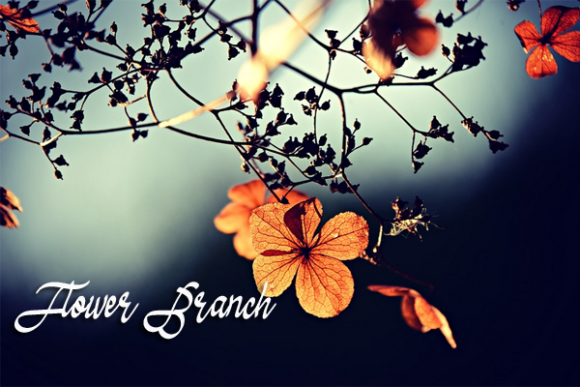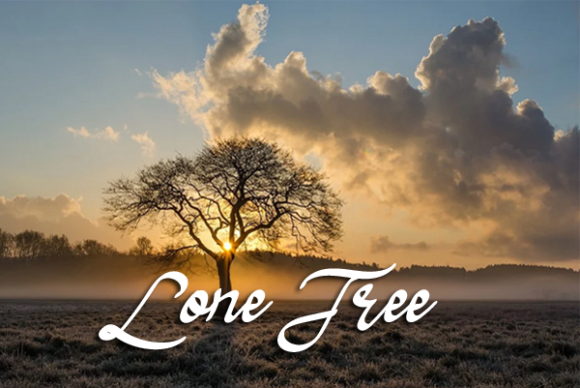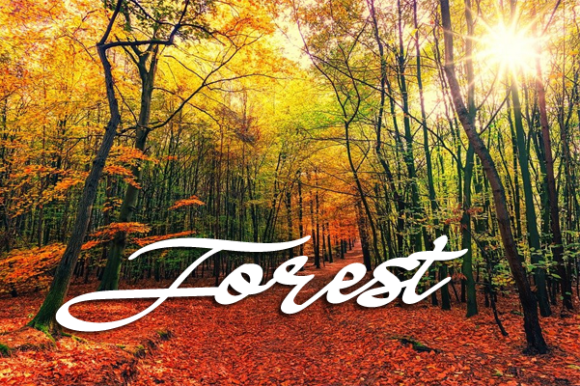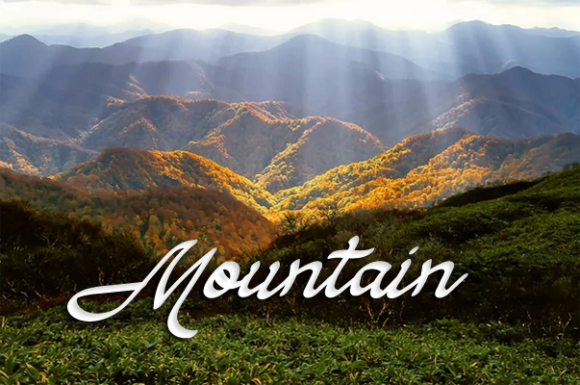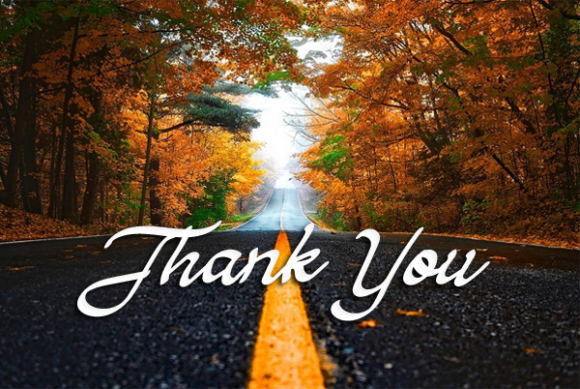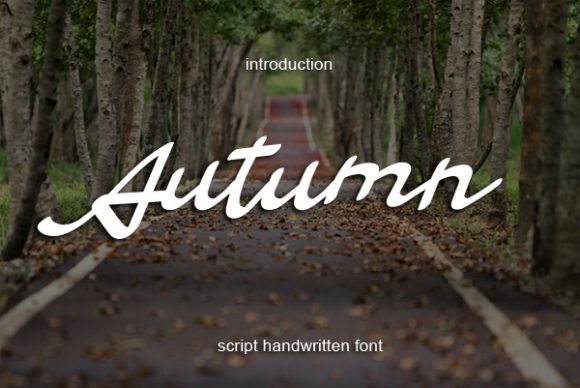
The Magic of Autumn Font: A Designer’s Delight
I still remember the design project that led me to discover the beautiful Autumn Font. I was working on a branding project for a cozy coffee shop, and I was struggling to find the perfect font that would capture the warmth and elegance of their brand. That’s when I stumbled upon Autumn Font, and it instantly became my go-to choice. Its delicate and elegant handwritten style won my heart, and I knew I had found the perfect fit for my project.
An Honest Review of Autumn Font
What I Love About Autumn Font ✨
- ✅ Delicate and elegant handwritten style
- ✅ Distinct and well-rounded letters that make it a masterpiece
- ✅ Cursive characters that add a touch of sophistication to any design
- ✅ Perfect for creating spectacular designs that require a personal touch
While Autumn Font is a stunning font, it’s not without its limitations. Here are a few things to keep in mind:
- ⚠️ May not be suitable for very small font sizes, as some details may get lost
- ⚠️ Limited availability of stylistic alternates, which may limit design flexibility
The Backstory of Autumn Font
Autumn Font was designed by a talented type designer who wanted to create a font that would capture the essence of the autumn season. The designer drew inspiration from the natural world, with its warm colors and delicate textures. The result is a font that’s both elegant and refined, perfect for designs that require a personal touch.
Q: What is Autumn Font?
A: Autumn Font is a delicate and elegant handwritten font that’s perfect for designs that require a personal touch.
Q: What are the OpenType features of Autumn Font?
A: Autumn Font features a range of OpenType features, including ligatures and stylistic alternates.